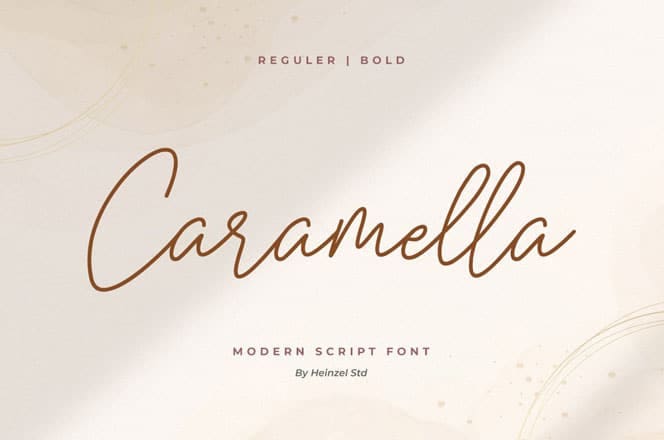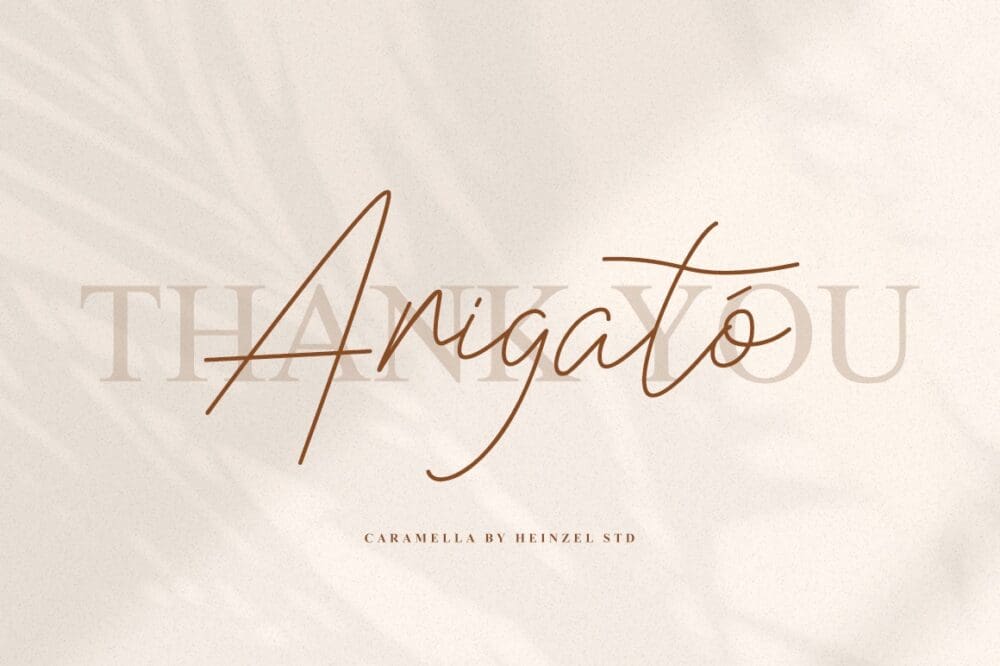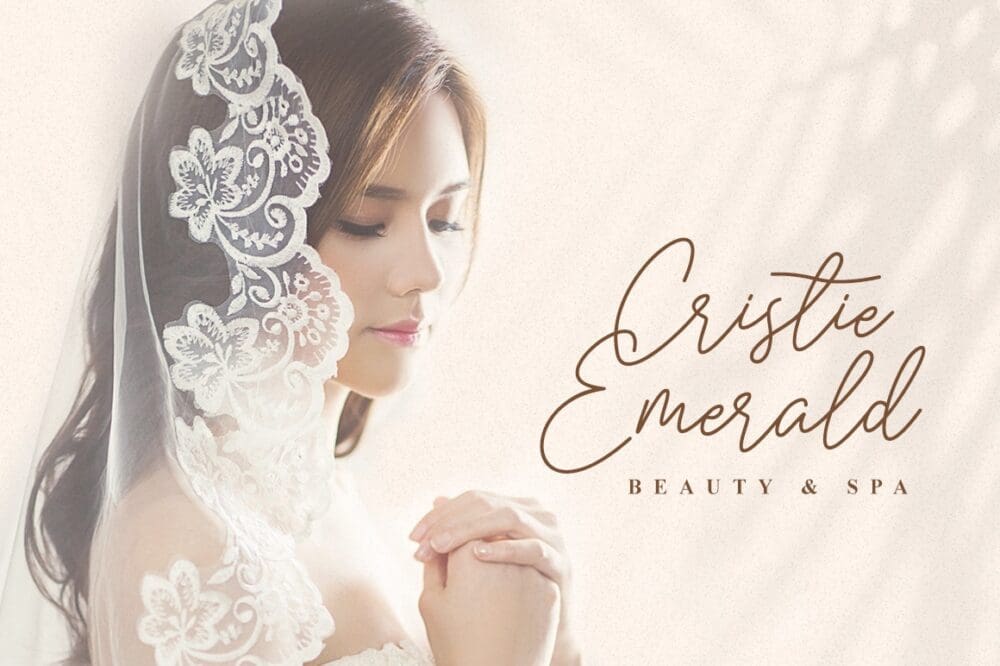
Caramella Script Font
Caramella Script Font simplifies elegance into a one truly stunning handwritten font. With its relaxed feel, Caramella is incredibly versatile, suitable for each of the design projects you may have in mind! Use it to create beautiful greeting cards, wedding invitations, logos, website titles, and much more!